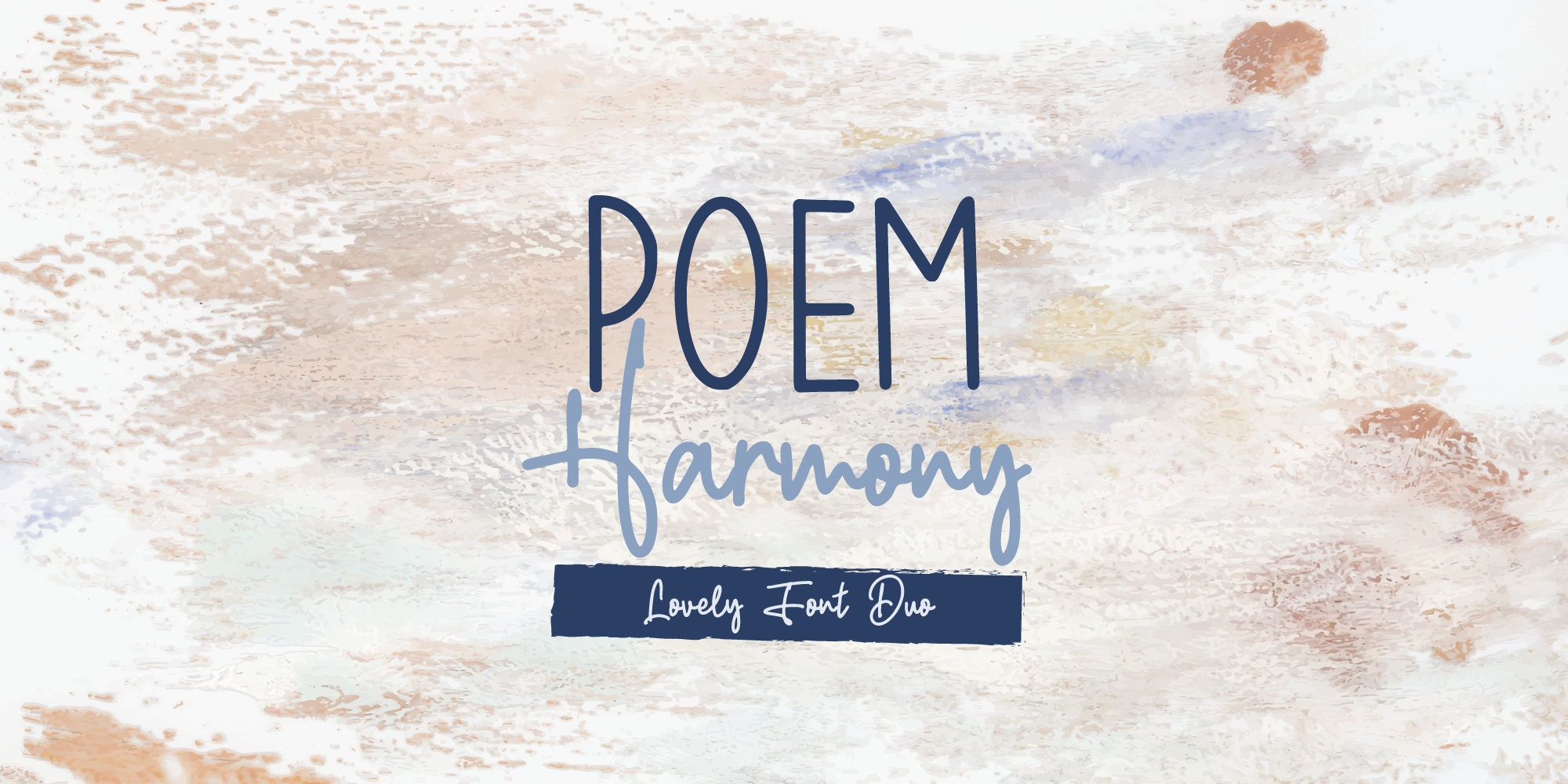
Poem Harmony Font Free Download is a beautiful and elegant script typeface that captures the essence of delicate handwriting with a modern, romantic feel. Its flowing curves and refined letterforms make it an excellent choice for wedding invitations, branding, greeting cards, product packaging, and any project that requires a soft, sophisticated touch.
The font’s graceful structure ensures excellent readability while adding a luxurious and heartfelt atmosphere to both print and digital designs. Poem Harmony brings a timeless beauty and emotional warmth, making it perfect for designs aiming to convey elegance, romance, and authenticity.
Poem Harmony is a valuable addition to any designer’s collection, offering a refined and expressive style ideal for creating memorable and beautiful creative projects.